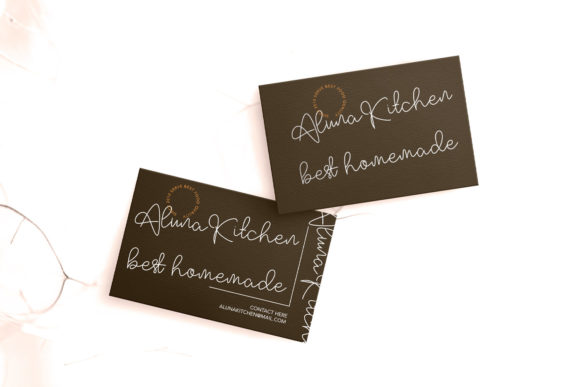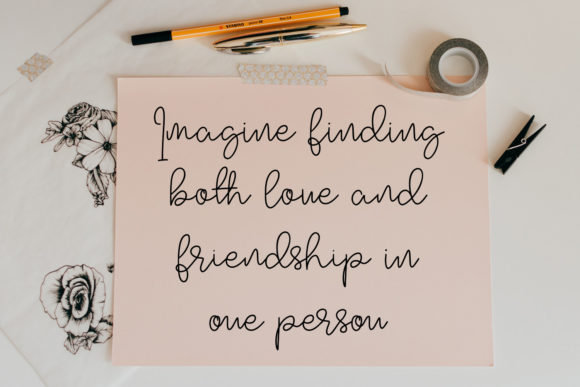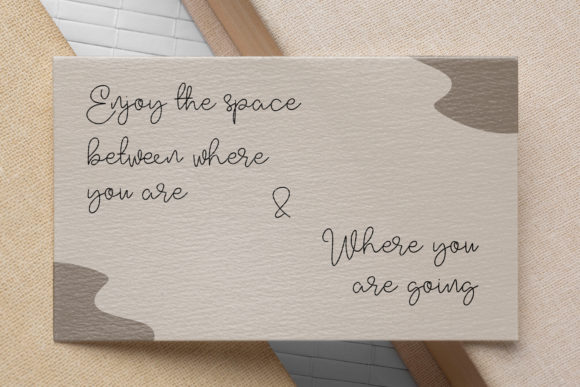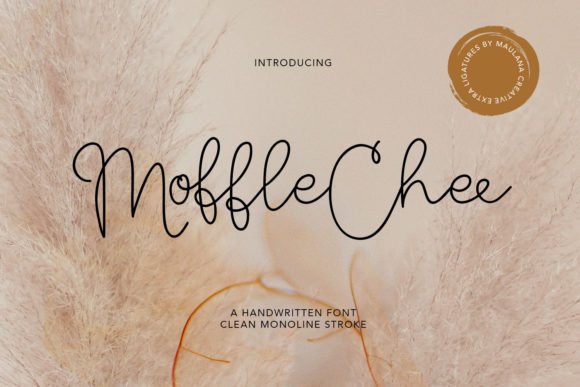
Introduction to Moffle Chee Handwritten Font
Give your designs an authentic handcrafted feel.
β€œMoffle Chee Handwritten” is perfectly suited to signature, stationery, logo, typography quotes, magazine or book cover, website header, clothing, branding, packaging design and more This font available: – Moffle Chee (OTF) – Moffle Chee (TTF) Thanks for use this font ~ Maulana.
Moffle Chee Handwritten Font offers exceptional quality and versatility, making it a valuable addition to your design toolkit. Whether you’re creating for personal projects or commercial use, Moffle Chee Handwritten Font delivers professional results.